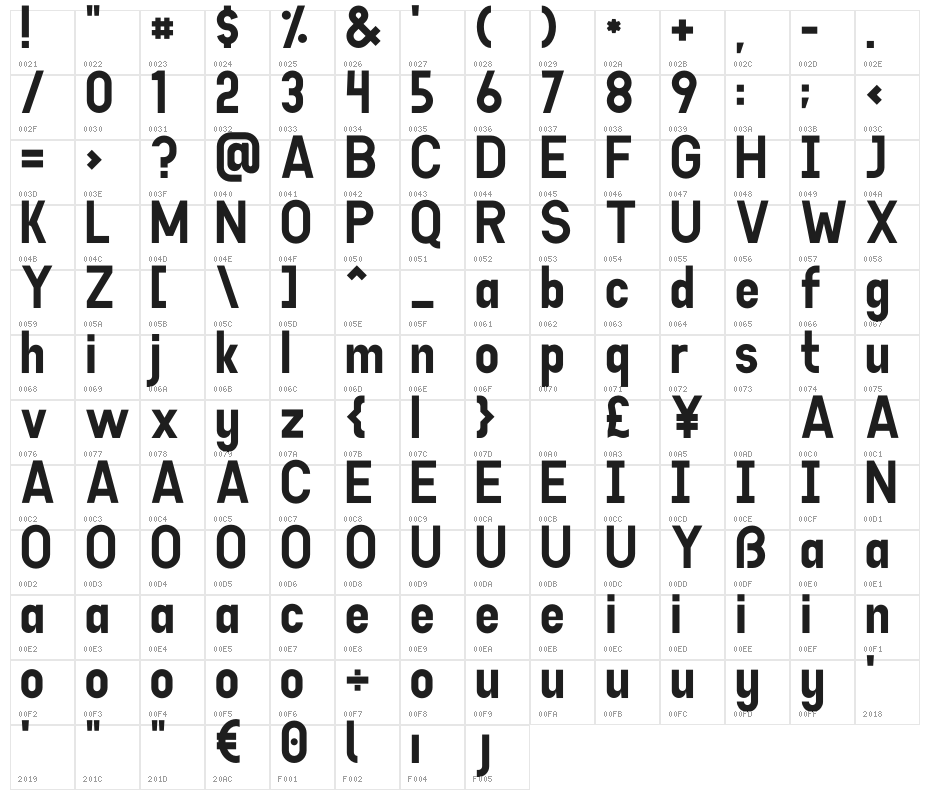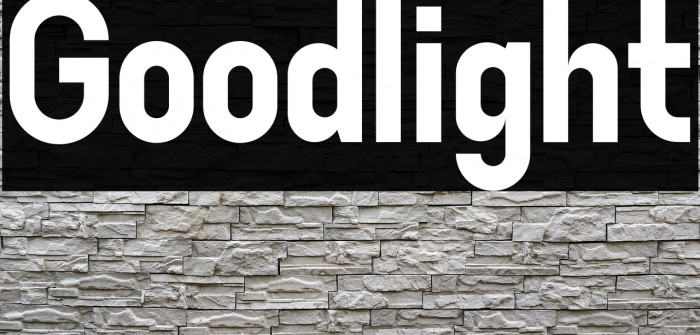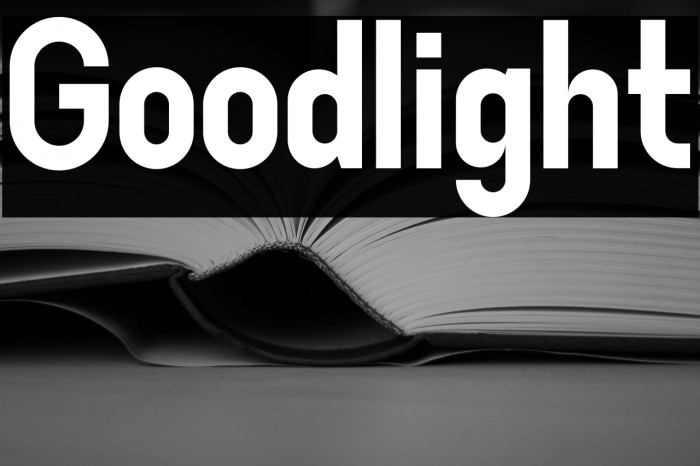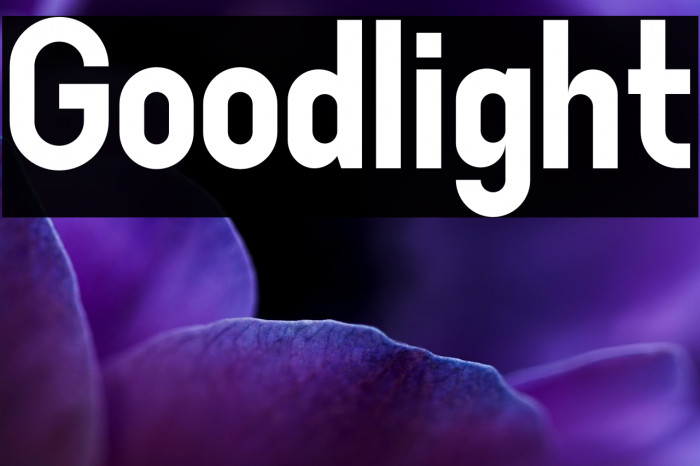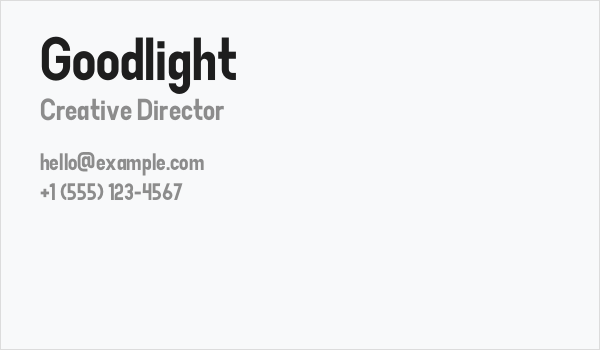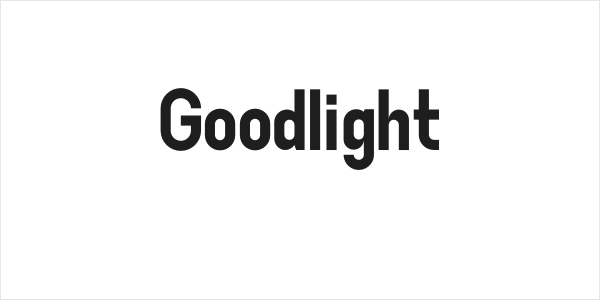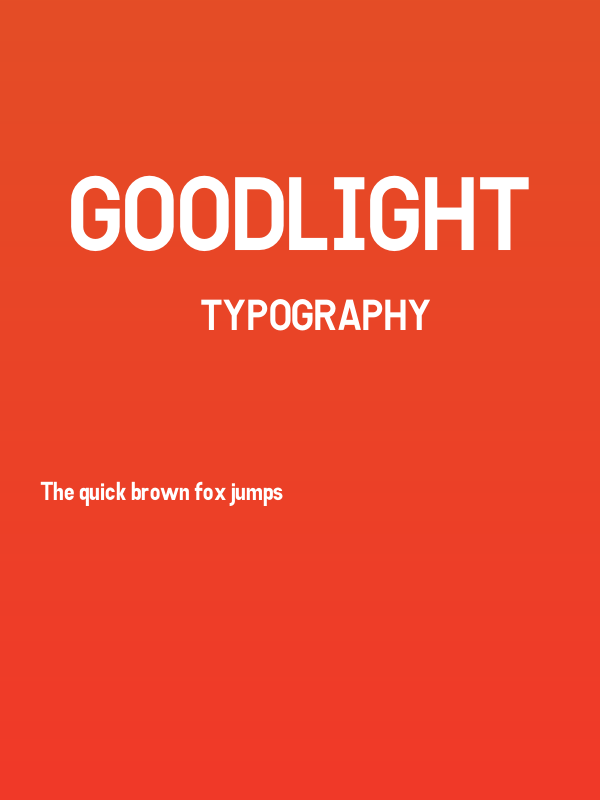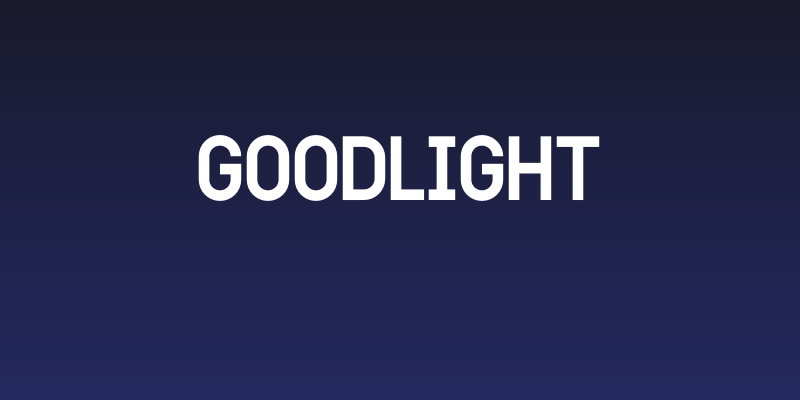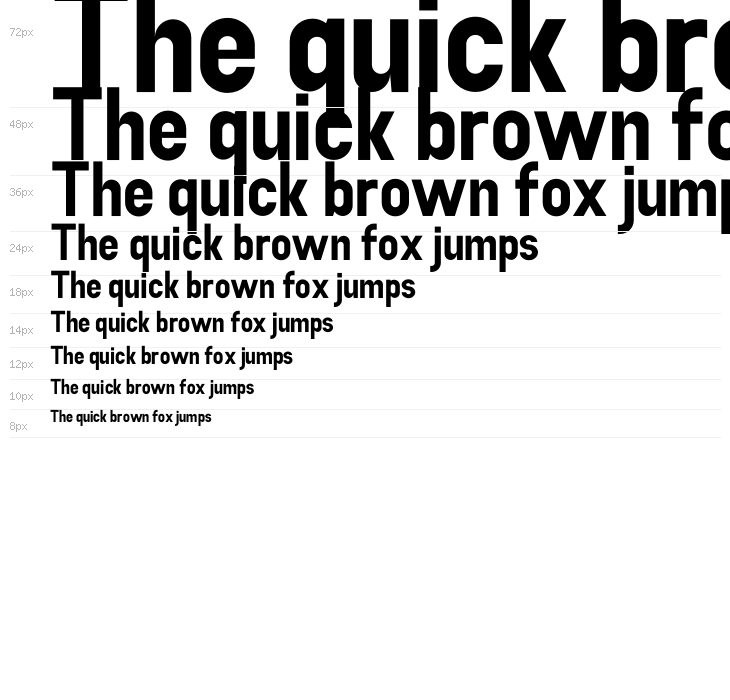
Goodlight Font
Goodlight Description
This font features a bold and modern sans-serif design, characterized by clean lines and a strong presence. The uppercase and lowercase letters maintain a consistent height, providing a uniform appearance. The numerals are clear and easily distinguishable, making them suitable for various applications. Special characters are well-defined, enhancing the font's versatility. The overall style is contemporary, with a focus on readability and impact, making it ideal for headlines and branding.
Use CaseHeadlines, Logos, Branding
Proposed ProjectsIdeal for branding, advertising, headlines, and digital media projects.